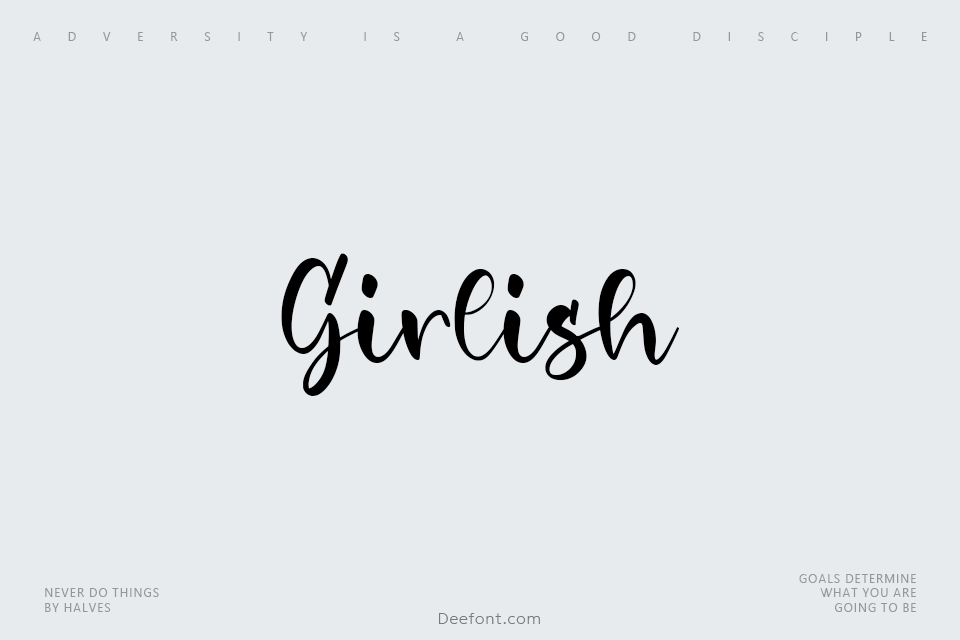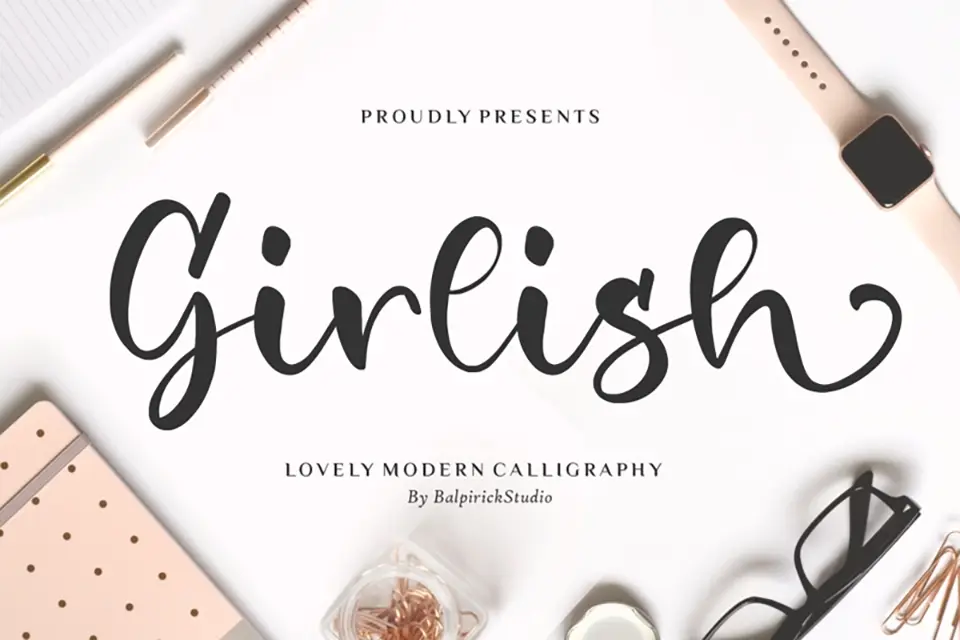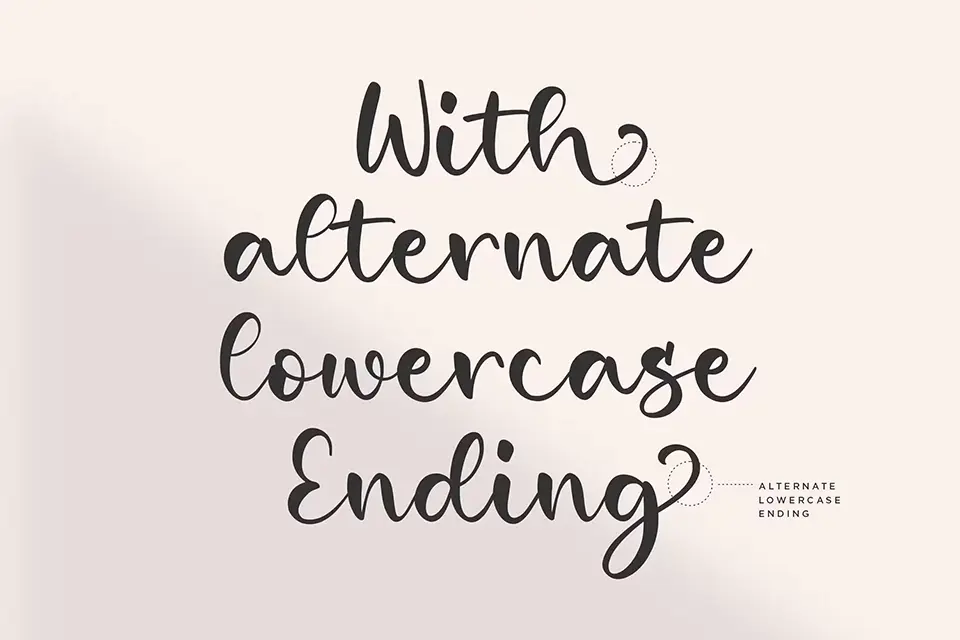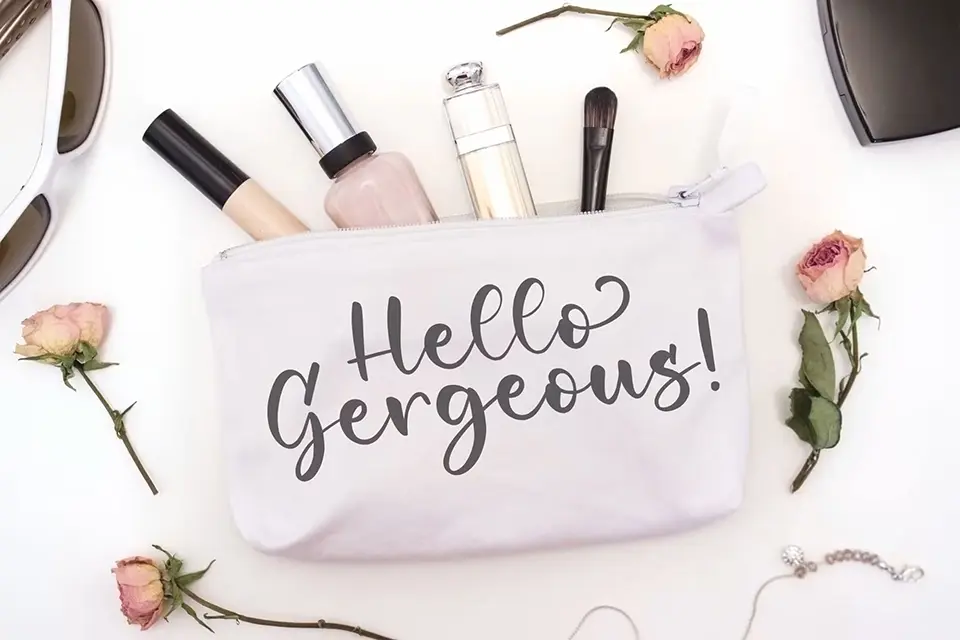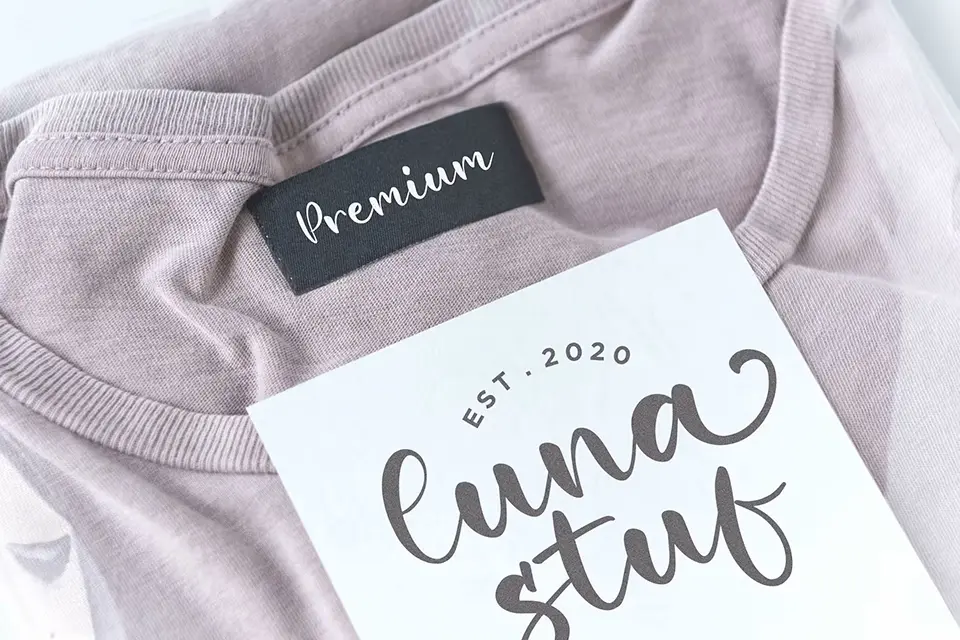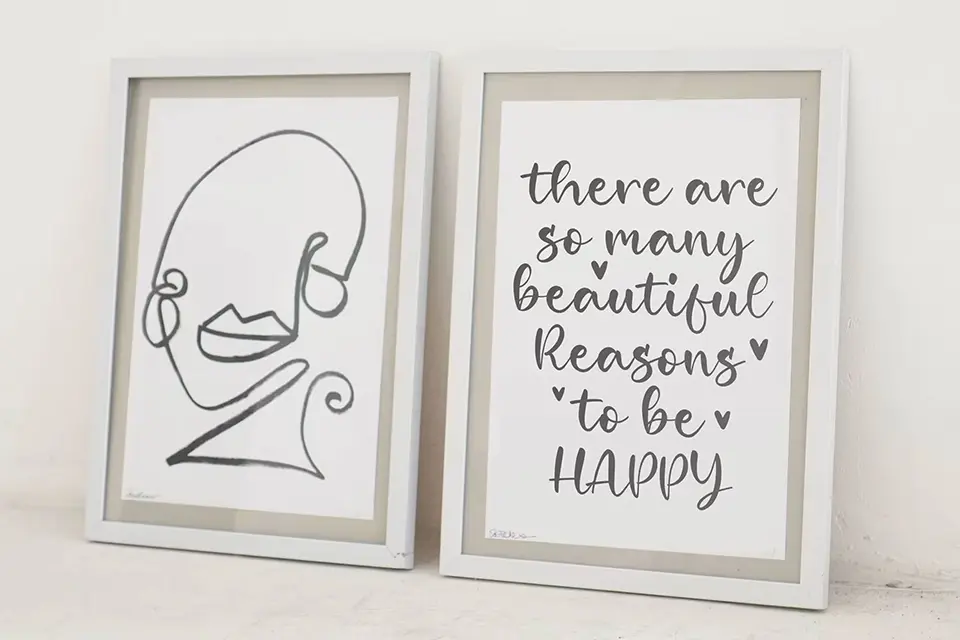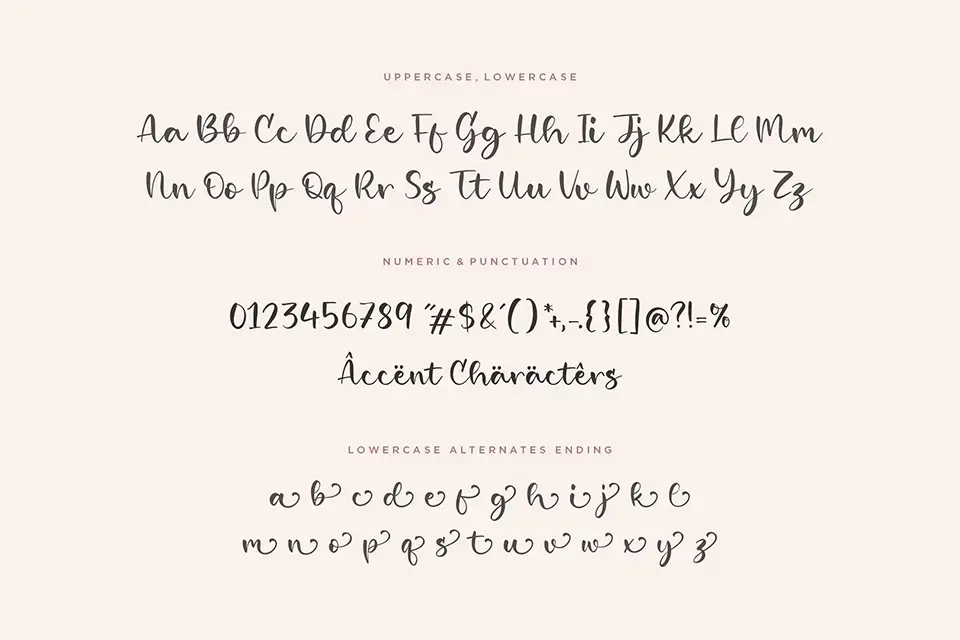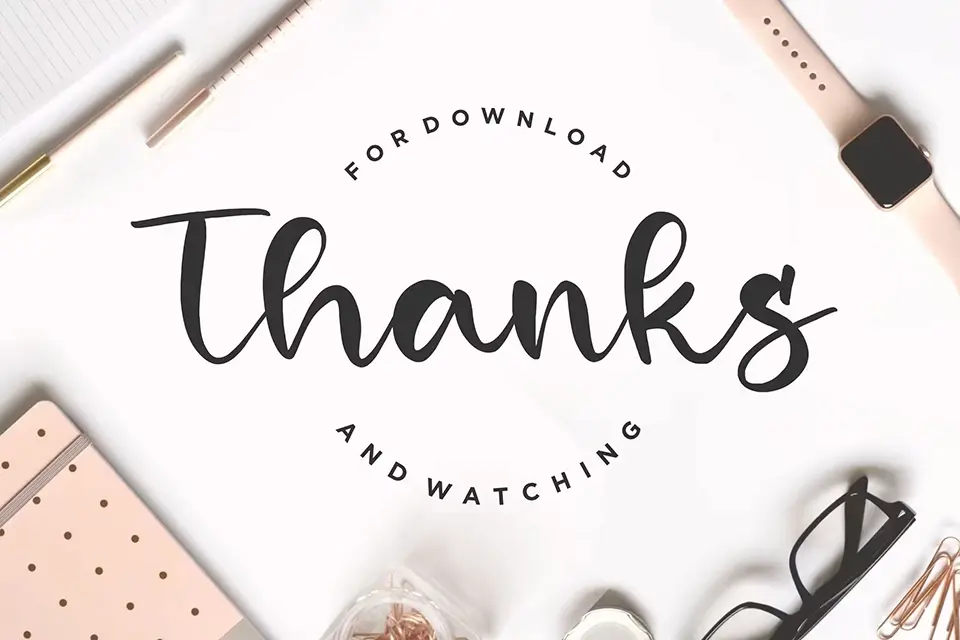
Girlish Font
Girlish is a modern calligraphy font created by Balpirick Studio, featuring delicate curves and flowing script that evoke playful femininity. Its elegant handwritten aesthetic is perfect for wedding invitations, branding projects, social media designs, and product packaging. With support for over 200 languages and multilingual features including stylistic alternates and ligatures, Girlish delivers a charming, light-and-airy typographic solution ideal for feminine branding and creative projects requiring a sweet, romantic touch.